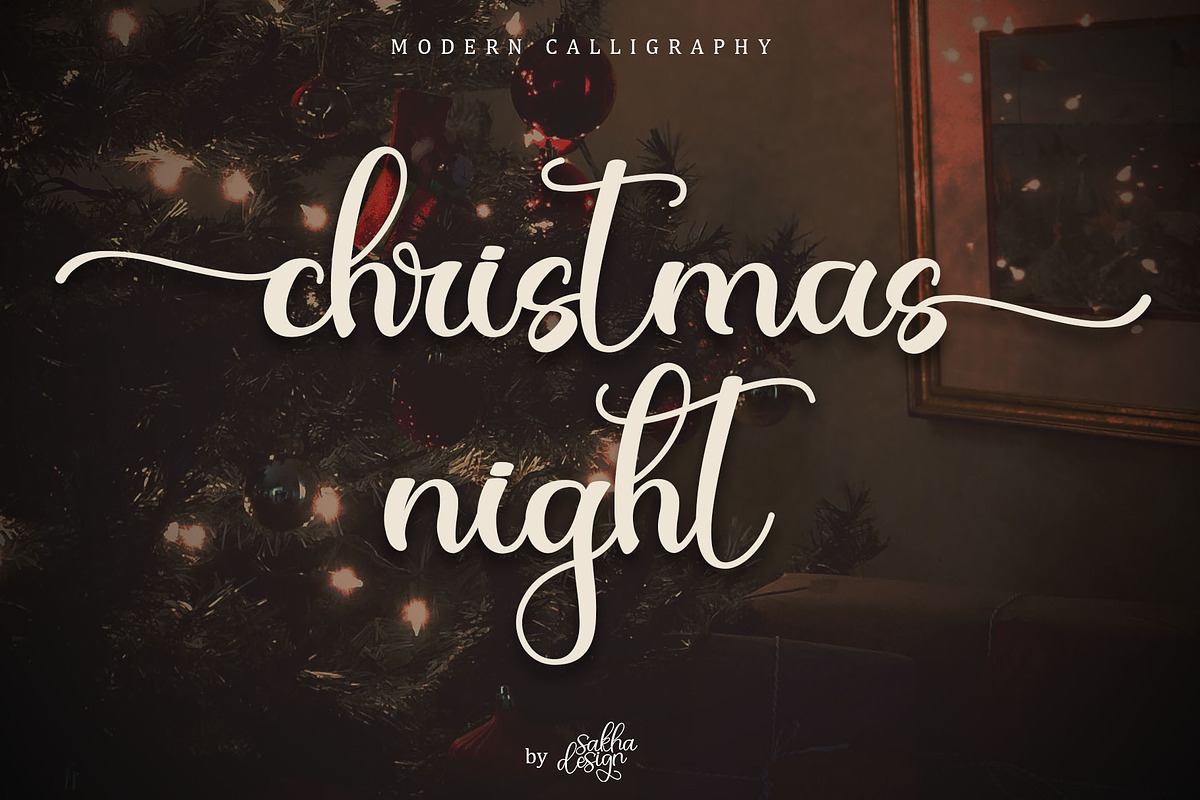
Christmas Night - Handwritten Font Free Download
Christmas Night - Handwritten Font Free Download is a festive and charming handwritten typeface designed to capture the warmth and joy of the holiday season. With its flowing strokes and casual, yet elegant style, this font is perfect for creating Christmas cards, invitations, holiday branding, gift tags, and social media posts.
Christmas Night - Handwritten Font Free Download brings a personal, cozy feel to your typography, making it ideal for designs that need a touch of holiday magic and a warm, handcrafted aesthetic. Whether you're designing for a Christmas event, a festive product, or simply spreading holiday cheer, this font adds a delightful, handwritten touch to your designs.